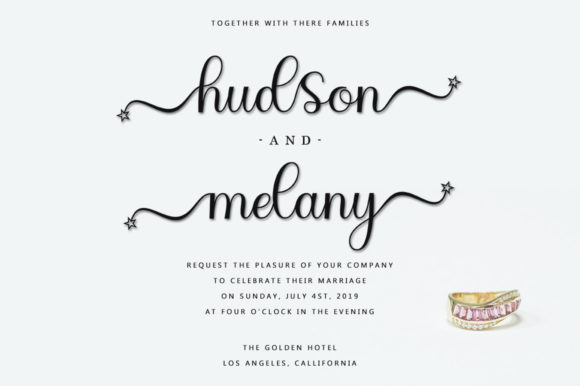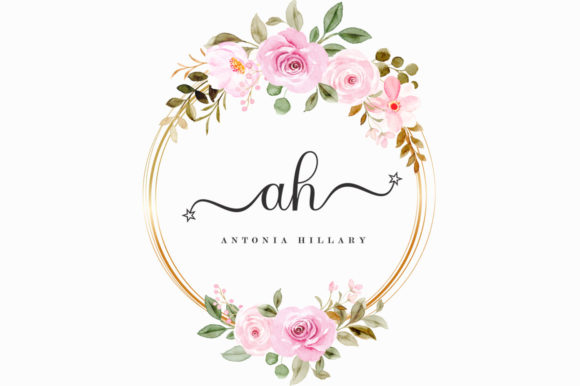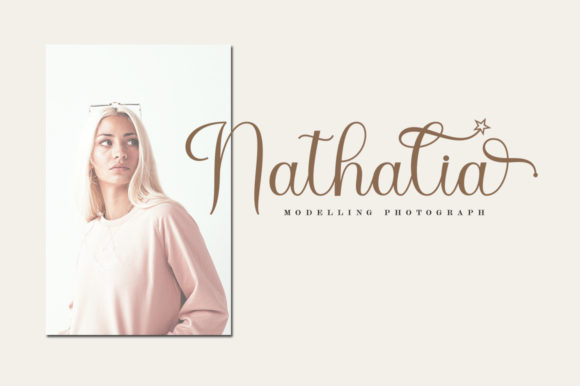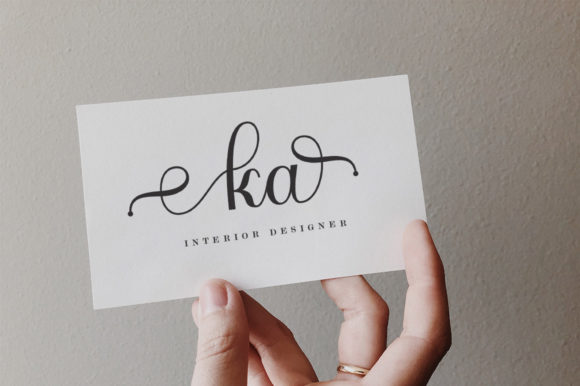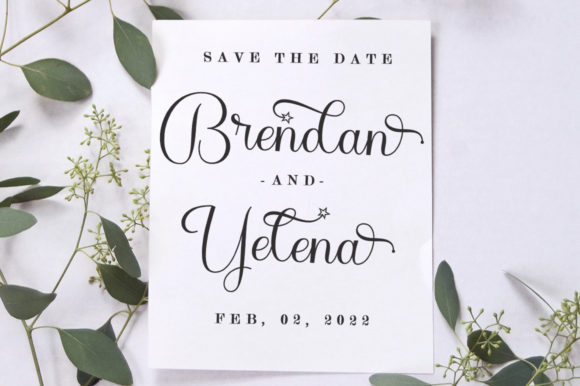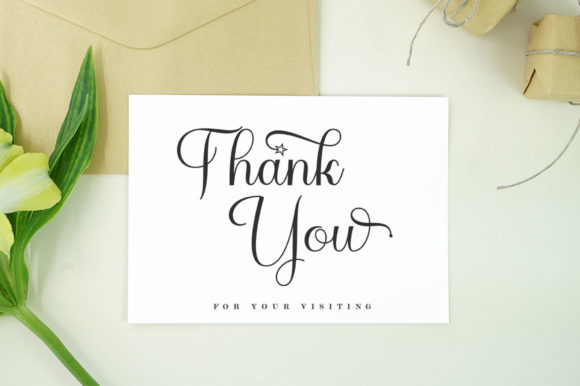
Discover the Elegance of Bailey Font: Elevate Your Designs with this Stunning Script Font
In the world of design, fonts play a crucial role in conveying the tone and aesthetic of a project. Whether you’re working on packaging products, invitation cards, flyers, mockups, event posters, or any other design that requires a touch of sophistication, the right font can make all the difference. This is where the Bailey Font comes into play – a free-flowing script font that has been specifically crafted to add a dash of elegance and high-quality vibes to your creations.
What Makes Bailey Font Stand Out?
Bailey Font is not just another script font; it’s a design element that can transform your projects with its beautiful and balanced character. Here are a few key features that make Bailey Font a must-have for designers and crafters:
- Free-Flowing Script: Bailey Font boasts a fluid, script style that adds a touch of sophistication and elegance to any design. Its flowing lines and curves make it perfect for projects that require a more personal and luxurious feel.
- Balanced Character: The font features a beautifully balanced character set, ensuring that your text remains clear and readable, even at larger sizes. This balance makes it versatile for use in a wide range of design applications.
- PUA Encoded: Bailey Font is PUA (Private Use Area) encoded, which means you can easily access all the glyphs and swashes. This encoding allows for greater flexibility and creativity in your designs, enabling you to incorporate intricate details and flourishes with ease.
- High-Quality Vibes: The font is designed to provide high-quality vibes, making it ideal for professional projects. Whether you’re designing for print or digital platforms, Bailey Font ensures that your work stands out with its premium feel.
Use Cases for Bailey Font
The versatility of Bailey Font makes it suitable for a wide array of design projects. Here are some of the top use cases where Bailey Font truly shines:
- Packaging Products: Add a luxurious touch to your product packaging with Bailey Font. Its elegant and sophisticated look can elevate the perceived value of your products.
- Invitation Cards: Create stunning invitation cards for weddings, parties, and corporate events. The font’s beautiful script style ensures that your invitations stand out and set the tone for a memorable event.
- Flyers and Brochures: Use Bailey Font to create eye-catching flyers and brochures that capture the attention of your audience. Its readability and aesthetic appeal make it perfect for marketing materials.
- Mockups: Enhance your mockups with a touch of elegance. Bailey Font can be used to create realistic and visually appealing previews of your designs.
- Event Posters: Design captivating event posters with Bailey Font. Whether it’s a concert, festival, or conference, this font can help you create promotional materials that draw in attendees.
Tips for Using Bailey Font Effectively
To get the most out of Bailey Font, consider the following tips:
- Pair with Complementary Fonts: Bailey Font pairs well with clean, sans-serif fonts. Use this combination to create visual contrast and hierarchy in your designs.
- Experiment with Swashes: Take advantage of the PUA encoding to experiment with different swashes and glyphs. This can add a unique touch to your designs and make them more engaging.
- Adjust Font Sizes: Play with different font sizes to create emphasis and visual flow in your designs. Bailey Font’s balanced character ensures that it remains legible across various sizes.
Bailey Font is a versatile and elegant script font that can elevate your designs to new heights. Its free-flowing style, balanced character, and PUA encoding make it a valuable asset for designers and crafters looking to add a touch of sophistication to their projects. Whether you’re working on packaging, invitations, flyers, or event posters, Bailey Font is sure to provide the high-quality vibes you need to make your designs stand out.